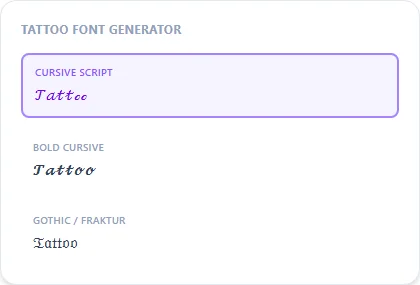
Tattoo Font Generator
Most tattoo font searches are really about previewing how a word or name would look in script or blackletter lettering before committing to a design.
Type the word you're considering and compare it across Script, Bold Script, and Gothic. These three styles most closely match common tattoo lettering.
Tattoo Font Generator style examples: Cursive Script, Bold Cursive, Gothic / Fraktur, rendered on the word "Tattoo"
A preview tool, not a tattoo design tool
This generator swaps letters for visually similar Unicode characters. It's built for comparing lettering styles quickly, not for producing a print-ready tattoo design. Unicode glyphs are drawn for on-screen reading at normal text sizes; a tattoo artist works in vector line art built specifically for skin, needle depth, and healing, so expect them to redraw your chosen style rather than trace the generated text directly.
Script, bold script, or gothic — matching common tattoo requests
Script and Bold Script cover the flowing, connected-letter look behind most 'cursive tattoo font' searches. Gothic and Bold Gothic cover the heavier Old English/blackletter look common in text-only tattoos and memorial lettering. Bring whichever preview you land on to your consultation as a starting reference point.
Which style is closest to a classic script tattoo?
Bold Script most closely resembles the flowing, connected lettering common in script tattoos.
Which style is closest to an Old English / gothic tattoo?
Gothic (Fraktur) or Bold Gothic — this is the same blackletter style used on the gothic font generator page.